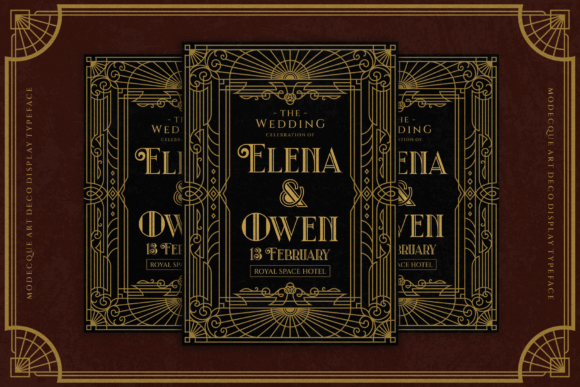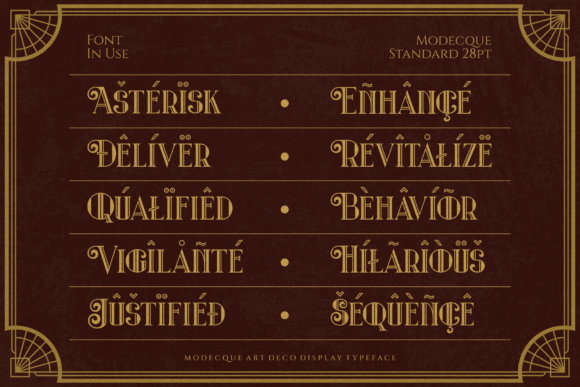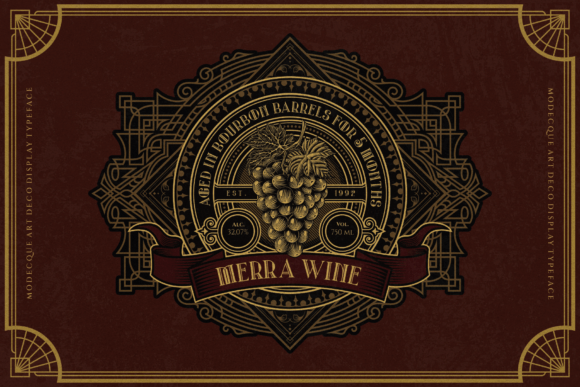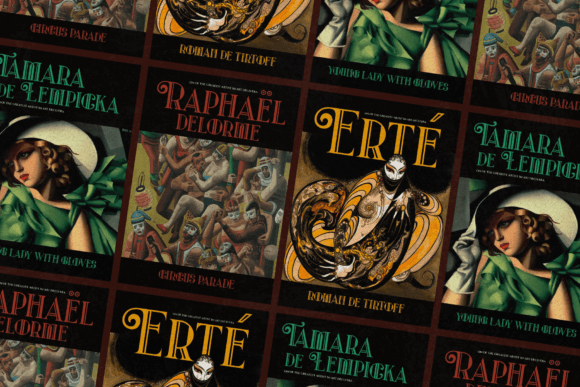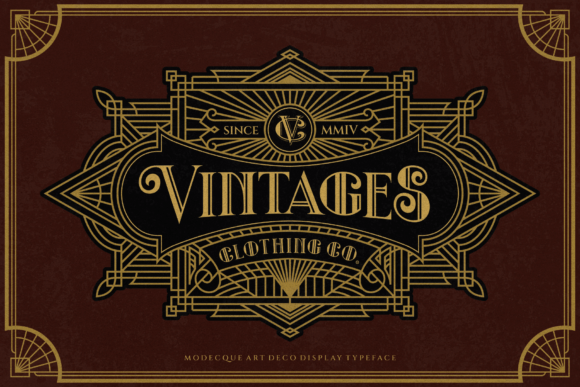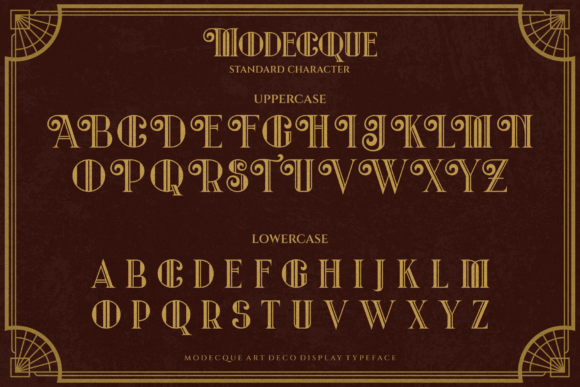
Introduction to Modecque Font Font
Fonts play a crucial role in design, and the Modecque Font font is a typeface that brings both character and versatility to any project. Whether you’re working on a branding project, a website, or a print design, the Modecque Font font offers a unique style that can elevate your work.
Modecque is a cross between Victorian and art deco fonts, this font will become a new and interesting trend to explore in design, elegant Victorian is made a little more masculine due to the influence of art deco, resulting in a slightly elegant but elegant font.
Fonts that still match the art deco style but have a slight touch of grace, will be suitable for classic but elegant designs .
The Modecque Font font is more than just a typeface – it’s a design tool that helps you communicate your message with style and clarity. Its unique character set and versatile design make it suitable for a wide range of applications, from elegant invitations to bold headlines.
With its carefully crafted letterforms and balanced proportions, the Modecque Font font ensures readability and visual appeal across all mediums.
The Modecque Font font stands out with its unique design, exceptional readability, and versatility across various design applications.